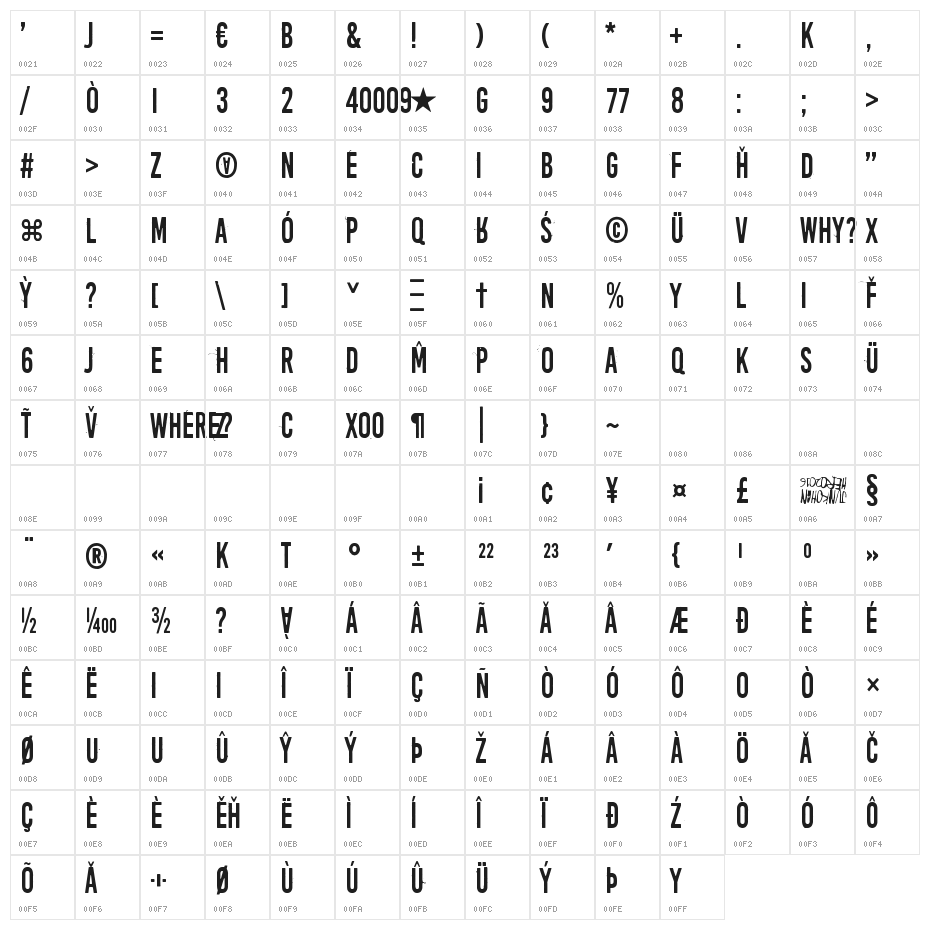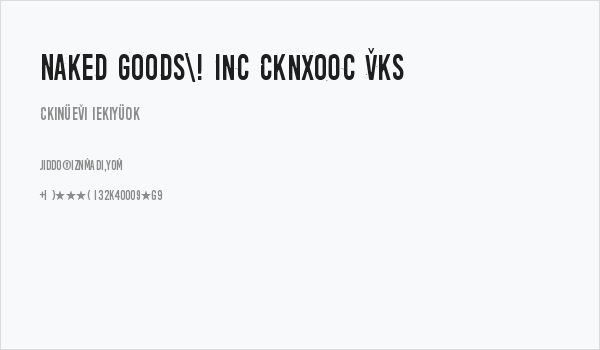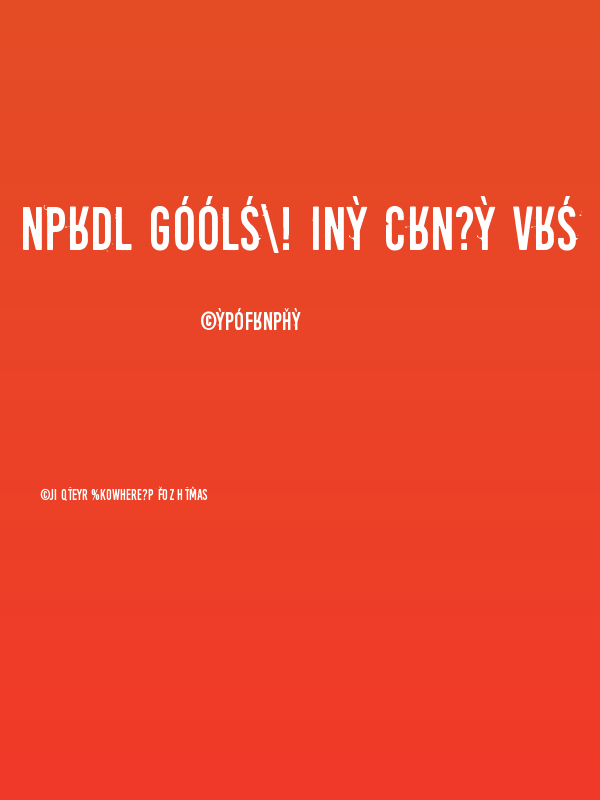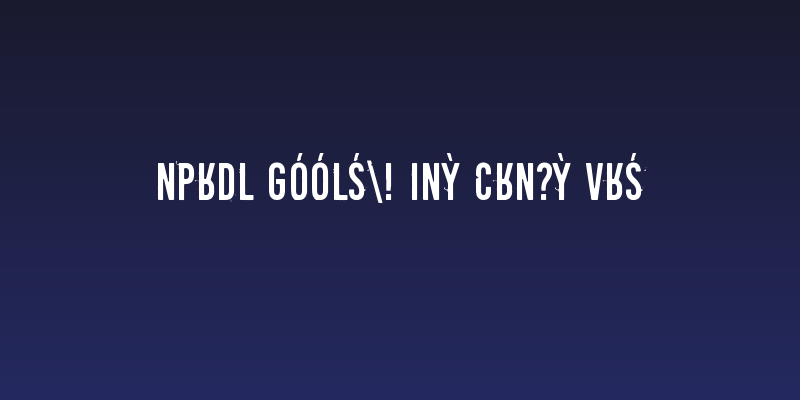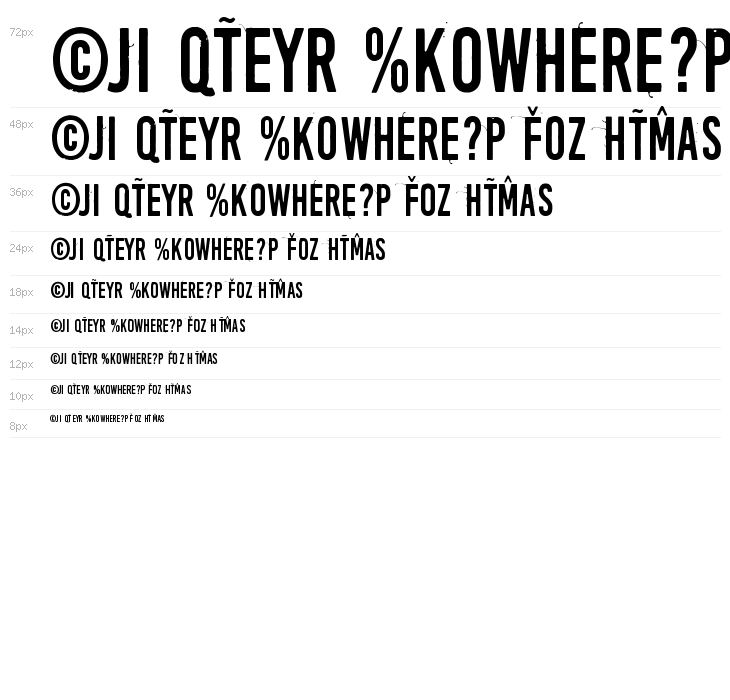
April Fools' Day Crazy vrs Font
April Fools' Day Crazy vrs Description
This font exhibits a bold and impactful design, characterized by its thick strokes and strong presence. The letters are uniformly structured, providing a sense of stability and strength. The font includes a variety of accented characters, making it versatile for multiple languages. Its uppercase letters are prominent, while the numerals and special characters maintain the same boldness, ensuring consistency across all text elements. The overall appearance is modern and slightly condensed, which adds to its commanding look.
| Proposed Projects | Ideal for headlines, posters, branding materials, and any project requiring a strong visual impact. |